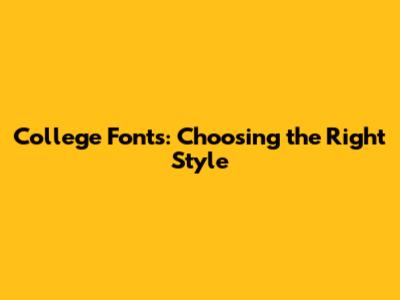
Hey guys! So, you're probably thinking about college, right? Applications, essays, maybe even designing a cool club poster. Whatever it is, picking the right font can make a huge difference. It's not just about how pretty the letters look; it's about conveying the right message and vibe. Think of fonts as the voice of your words. A fancy, scripty font might scream 'elegance' or 'tradition,' while a clean, sans-serif one could shout 'modern' and 'efficient.' Understanding these nuances is key to making sure your message lands exactly how you want it to. When you're staring at a blank document, wondering which typeface to use, it’s easy to get overwhelmed. There are literally thousands of fonts out there, each with its own personality. But don't sweat it! We're going to break down the different types of fonts, why they matter for college-related stuff, and how to pick the perfect one that makes your application shine or your presentation pop. We'll cover everything from the classics that scream 'academic' to the more contemporary styles that show off your unique personality. So, let's dive in and find the font that's going to help you nail that first impression, whether it's for a scholarship essay, a project proposal, or just making your study notes look way cooler.
Understanding Font Categories: Serif vs. Sans-Serif and More
Alright, let's get down to the nitty-gritty of fonts. You've probably heard the terms 'serif' and 'sans-serif' thrown around, and they're pretty much the two biggest players in the font game. So, what's the deal? Serif fonts are the ones with the little decorative strokes, or 'feet,' at the ends of the letters. Think of classic fonts like Times New Roman, Georgia, or Garamond. These fonts have been around forever and have a traditional, academic, and sophisticated feel. They’re often associated with print media, like books and newspapers, because those little serifs are thought to help guide the eye across long lines of text, making them super readable for extended reading. For college applications, essays, or any formal academic document, serif fonts are usually a safe and strong bet. They convey a sense of seriousness, credibility, and a respect for tradition, which can be exactly what admissions committees are looking for. They tell them, 'Hey, I'm serious about this, and I understand the conventions of formal writing.' Now, on the flip side, we have sans-serif fonts. 'Sans' means 'without' in French, so sans-serif fonts are literally fonts without those little decorative strokes. Examples include Arial, Helvetica, Calibri, and Verdana. These fonts have a cleaner, more modern, and minimalist look. They often feel more approachable and straightforward. In the digital age, sans-serif fonts have become incredibly popular, especially for web design and screen readability, because they tend to render very clearly on screens, even at smaller sizes. For presentations, website content, or anything where you want a contemporary, clean, and direct feel, sans-serif fonts are your go-to. They can make your content feel fresh and accessible. Beyond these two giants, there are other categories too! Script fonts mimic handwriting, ranging from elegant calligraphy to casual cursive. These are best used sparingly for decorative purposes, like a title or a logo, as they can be hard to read in large blocks of text. Then you have display fonts, which are super stylized and designed for impact – think large headlines, posters, or logos. They're all about personality and drawing attention, but again, not for body text. When choosing a font for college, consider the context. Is it a formal essay? Go serif. Is it a lively club poster? Maybe a sans-serif or even a carefully chosen display font for the headline. The goal is to match the font's personality to your message's intent.
Why Font Choice Matters for College Applications and Beyond
Alright, let's talk about why this whole font thing is actually a big deal, especially when you're heading towards college applications and all the academic hustle. Guys, seriously, your font choice is one of the first things an admissions officer or a professor notices, even if they don't consciously realize it. It's like walking into a room – your appearance, your vibe, it all sets a tone before you even say a word. A well-chosen font can communicate professionalism, attention to detail, and a certain level of sophistication. On the flip side, a poorly chosen font can send the wrong message. Imagine submitting a killer essay, poured your heart and soul into it, but you used Comic Sans. Oof. That's not going to scream 'serious academic candidate,' right? It screams 'I didn't put much thought into this,' which is the absolute opposite of what you want. So, for your college essays and application forms, sticking to classic, readable serif fonts like Times New Roman, Garamond, or Georgia is generally the safest and most effective route. These fonts have a long-standing association with academic rigor and trustworthiness. They tell the reader, 'I'm a serious student, I respect the conventions of academic writing, and I've put care into this document.' They're designed for readability over long stretches, which is crucial for essays. Now, think beyond just the application essay. You might be creating presentations for a class, designing flyers for student clubs, or even working on a personal website or portfolio. In these scenarios, your font choices can be even more expressive. For a presentation, a clean sans-serif font like Arial or Calibri can make your slides easy to read from a distance and give a modern feel. If you're designing a flyer for a band or a drama club, you might opt for a more dynamic display font for the headline to grab attention, but still use a readable sans-serif or serif for the important details like date, time, and location. The key is consistency and appropriateness. If you choose a font, stick with it (or a complementary one) throughout your project. Don't jump between five different font styles on one page. And always, always ask yourself: does this font fit the context? Does it reflect the tone and purpose of what I'm trying to communicate? Your font choice is a subtle but powerful tool in your communication arsenal. It shows you understand the importance of presentation and can wield it effectively to enhance your message, making you stand out for all the right reasons.
Top Font Picks for Academic Success
So, you need to pick some fonts that scream 'academic excellence' and 'I totally got this college thing.' Let's dive into some of the best college font choices that are going to make your essays, applications, and study notes look sharp and professional. First up, the undeniable king for formal documents: Times New Roman. Yeah, I know, it's the default on a lot of computers, and some people find it a bit too common. But honestly, guys, there's a reason it's a classic. It's a serif font, meaning it has those little feet, which makes it super readable for long blocks of text, like your admissions essays. It conveys tradition, seriousness, and a no-nonsense approach. If you want to play it safe and make sure your application essay is perceived as polished and academic, Times New Roman is a solid, reliable choice. It’s what most professors expect, and it rarely goes wrong. Next, let's talk about Garamond. This is another beautiful serif font that feels a bit more elegant and sophisticated than Times New Roman. It has a slightly lighter feel and a more classic, almost old-world charm. Garamond is excellent for essays where you want to convey a sense of refined intellect and a touch of grace. It's highly readable and definitely stands out as a thoughtful choice without being overly flashy. Then we have Georgia. This is a wonderful serif font designed specifically for screen readability, which is a huge plus these days since so many applications are submitted and read digitally. Georgia has a friendly yet authoritative feel. Its letters are a bit wider and have more space between them, making it very clear and easy on the eyes, even at smaller sizes. It’s a great alternative if you find Times New Roman a little too stern. For a slightly more modern, but still very academic, sans-serif option, consider Calibri. It's the default in many Microsoft Office applications now, and for good reason. It's clean, modern, and highly readable on screens. While you might not use it for your main admissions essay (a serif is usually preferred there), Calibri is fantastic for presentations, resumes, or any document where you want a clean, contemporary look without sacrificing readability. Another excellent sans-serif choice is Arial. It's straightforward, no-frills, and universally recognized. Like Calibri, it's great for digital documents, presentations, and making information clear and accessible. If you're designing a club poster or a more informal project, you might explore Lato or Open Sans. These are modern, friendly sans-serif fonts that are versatile and come in many weights, offering a good balance between readability and style. Remember, the goal for academic work is usually clarity and professionalism. While it’s fun to play with fancy fonts, for anything that counts towards your grades or your college admission, sticking to these proven, readable, and professional choices will serve you well. They show you understand the importance of clear communication and presentation in an academic setting. So, grab one of these, and you'll be well on your way to making a great impression!
Creative Font Use in College Life: Beyond the Essay
Alright guys, we've talked a lot about essays and formal stuff, but college life is SO much more than just academics, right? There's club meetings, events, parties, creative projects, and all sorts of cool things where you can really let your personality shine through with your college font choices! Think about designing a flyer for your intramural soccer team, creating a presentation for a history class that doesn't have to be super formal, or even just making your personal study notes look awesome. This is where you can get a bit more creative and have some fun. For event posters or club banners, you might want something bold and eye-catching. Display fonts are perfect for this. Fonts like Bebas Neue or Impact can grab attention immediately with their strong, condensed letters. They're great for headlines that need to pop. Just remember, use them sparingly for titles and short phrases because they can be tough to read in longer sentences. If you're going for a more artistic or retro vibe, a font like Lobster (a popular script font) or Playfair Display (a stylish serif with high contrast) could add a unique flair. For a club focused on, say, film or photography, a font that evokes a vintage cinema feel could be perfect. On the other hand, if your club is all about sustainability or community outreach, you might choose a font that feels grounded and approachable, perhaps a rounded sans-serif like Quicksand or a friendly serif like Merriweather. For presentations, even if they're not super formal, readability is still key. You can use a more distinct sans-serif like Montserrat or Roboto for your headings and then pair it with a simpler, highly readable font like Lato or Open Sans for the body text. Mixing and matching font families (but usually sticking to just two or three at most) can add visual interest. For your personal study notes, this is your playground! You can use different fonts to categorize information – maybe a neat sans-serif for definitions, a slightly more decorative font for key concepts, and handwriting (if you're neat!) for personal reflections. It’s all about making your notes engaging and easier for you to study from. The key here is to still be mindful of readability and appropriateness. Even in creative contexts, ensure the font doesn't distract from your message. A chaotic mix of too many fonts or overly decorative fonts for important details can undermine your efforts. So, experiment, have fun, and let your font choices reflect the energy and spirit of your college activities! Just don't forget the basics: keep it legible and relevant to the vibe you're going for.
Tips for Selecting and Using Fonts Effectively
Alright, we've covered a lot about different fonts and where you might use them in your college journey. Now, let's wrap it up with some super practical tips to make sure you're using these college font choices like a pro. First and foremost, readability is king. No matter how cool a font looks, if people can't easily read what you've written, it fails. This is especially true for essays, reports, and any text that needs to be read carefully. Stick to well-established, clear fonts for body text. For headings, you have more leeway, but they still need to be legible. My advice? Test it out. Print a page of your essay or project and read it from a normal distance. Does it look good? Is it easy to scan? If not, try a different font. Another crucial tip is consistency. Choose one or two font families and stick with them throughout your document or project. Using too many different fonts looks messy and unprofessional. Generally, pairing a serif font for headings with a sans-serif font for body text, or vice-versa, works well. Or, you can use different weights (like bold, regular, light) of the same font family. This creates a cohesive and polished look. Think about the tone and purpose. Is this a formal academic paper, a fun club event, or a personal blog post? The font should match the mood. A playful script font for a research paper? Probably not a good idea. A super formal serif for a party invite? Might seem stiff. Always consider your audience and what you want to communicate. Hierarchy is important. Use font size, weight (bolding), and style to guide the reader's eye. Headings should be larger and/or bolder than subheadings, which should be larger than body text. This visual structure makes your content easier to navigate and understand. Don't be afraid to explore font resources. Websites like Google Fonts offer a vast library of free, high-quality fonts that you can use for almost any project. Many design tools and word processors come with built-in font collections too. Experimenting with different options is part of the fun! Finally, when in doubt, go classic. For official applications and critical academic work, classic serif fonts like Times New Roman, Garamond, or Georgia, or clean sans-serifs like Arial or Calibri, are almost always the best bet. They are timeless, professional, and convey a sense of competence. By keeping these tips in mind, you'll be able to choose and use fonts effectively, making all your college-related communications clearer, more engaging, and definitely more impressive. Good luck, guys!